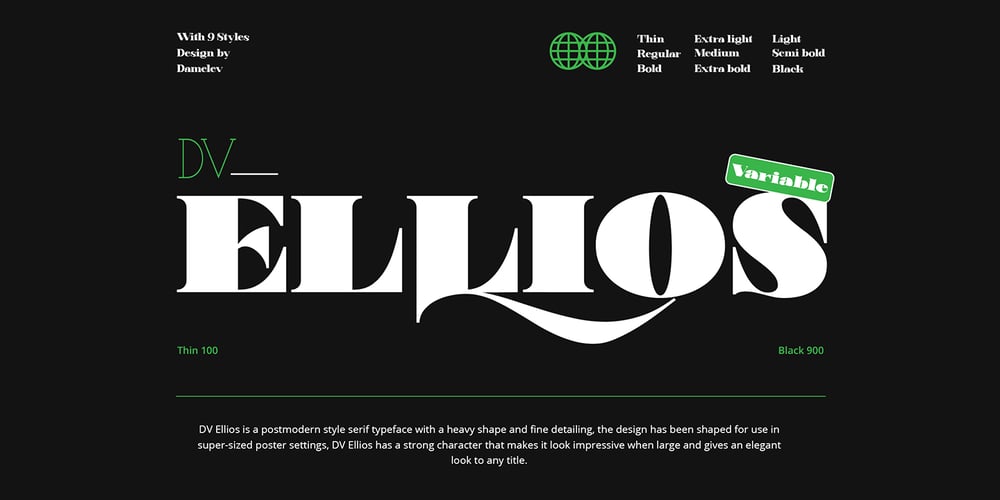
DV Ellios Font Family was designed by Tanzil Adduha and published by Tanziladd. DV Ellios contains 9 styles and family package options. DV Ellios is a postmodern style serif typeface with a heavy shape and fine detailing, the design has been shaped for use in super-sized poster settings, DV Ellios has a strong character that makes it look impressive when large and gives an elegant look to any title.The pack also includes eighteen different which are Thin, Extra Light, Light, Regular, Medium, Semi Bold, Bold, Extra bold, Black, and support multilingual.